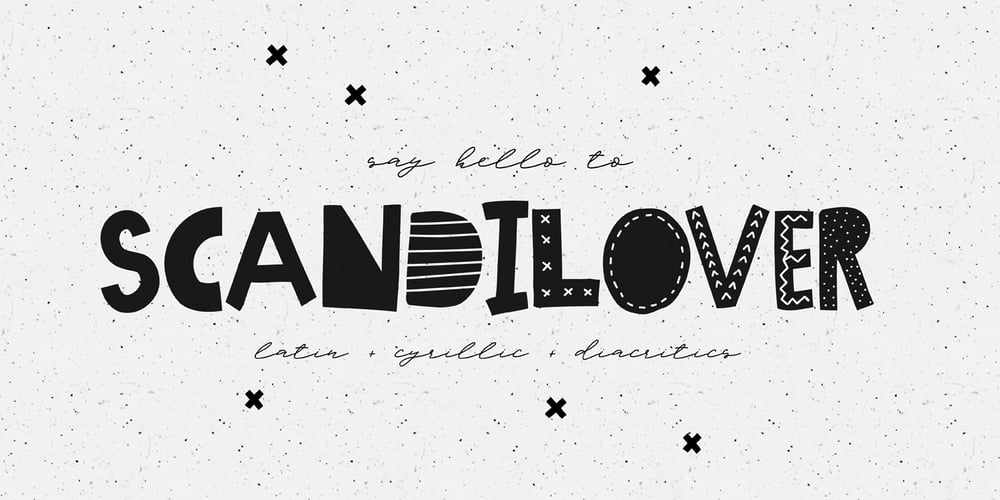
Scandilover
Scandilover font
Scandilover Font Family was designed by Katsia Jazwinska and published by Katsia Jazwinska. Scandilover contains 2 styles and family package options. Scandilover Family was inspired by monochrome Scandinavian style kid rooms full of handwritten graphics, black and white accessories and prints. Scandilover is a playful display font with its personal charisma. Each letter in the font perfectly combines with another and all in all creates a text that is an entire illustration itself. Scandilover Script is a thin delicate font which isn’t devoid of playfulness too. Together with contrasting Scandilover they make funny lively combinations. Just try!